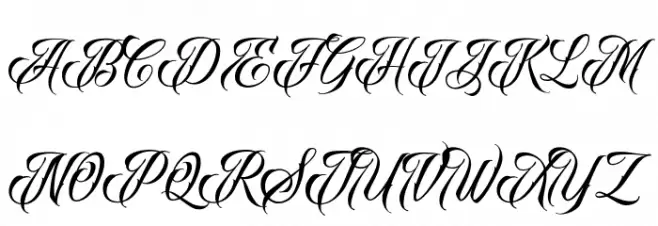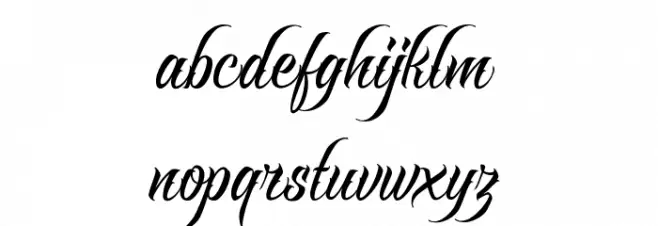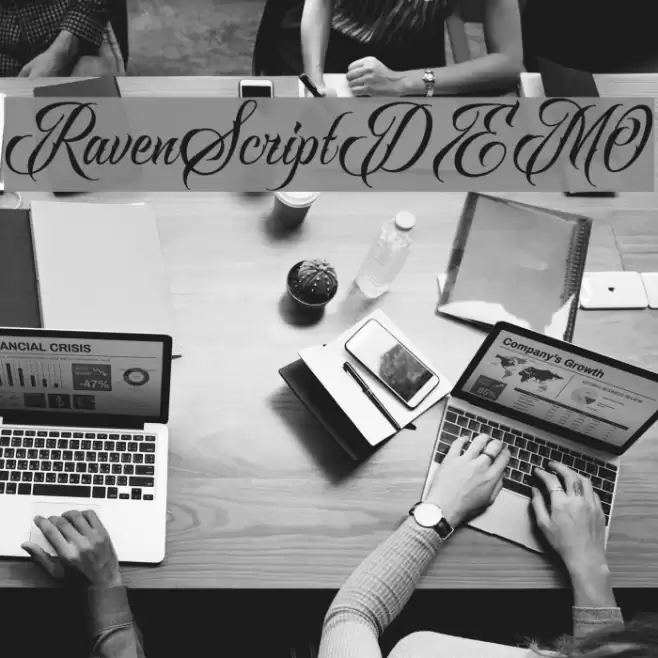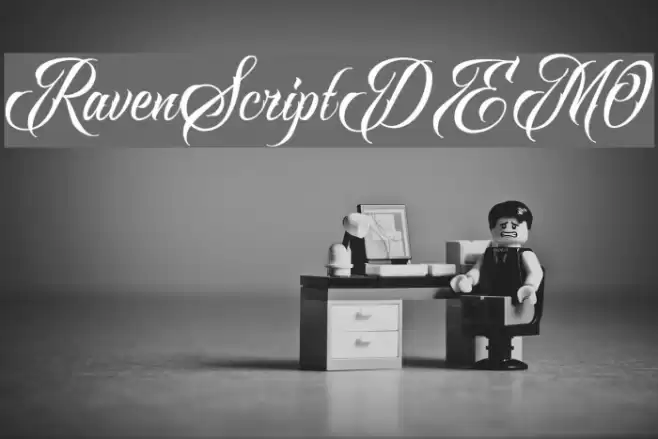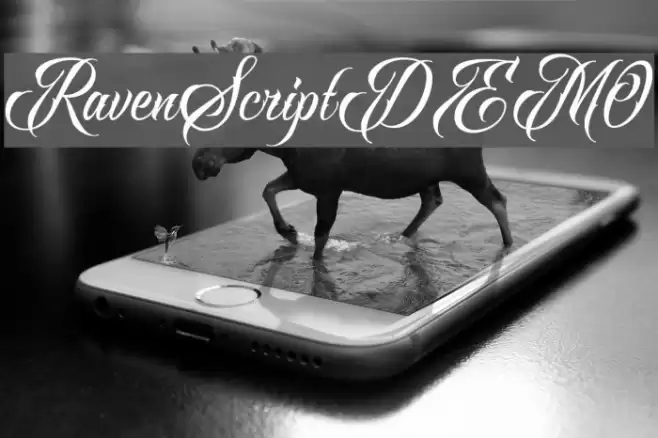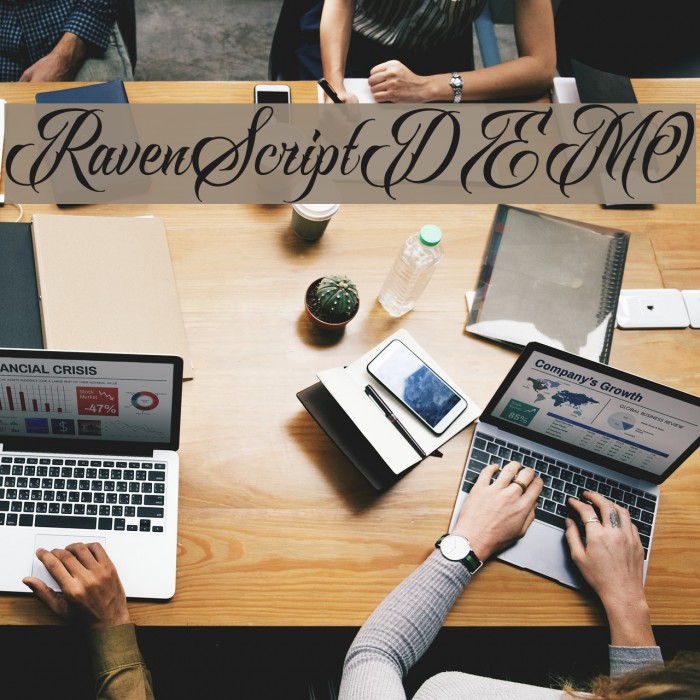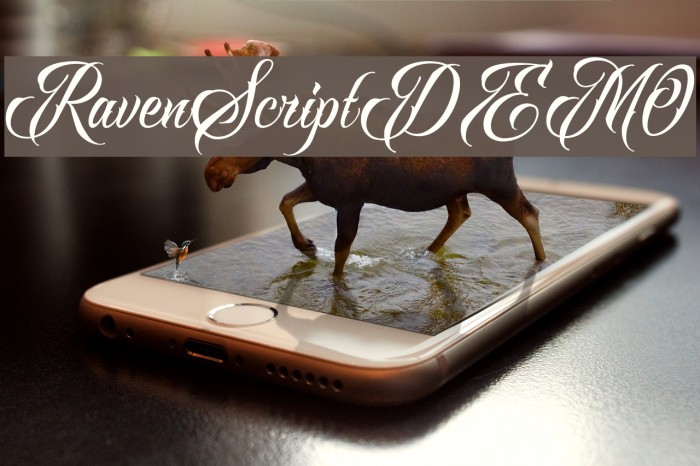
RavenScriptDEMO
This font features an elegant and flowing script style, characterized by its ornate and decorative letterforms. The uppercase letters are particularly elaborate, with sweeping curves and flourishes that give a sense of movement and sophistication. The lowercase letters maintain a consistent style, with smooth connections and a slightly more restrained design compared to the uppercase. This font exudes a classic and timeless feel, making it suitable for formal invitations, branding, and any project that requires a touch of elegance. The overall appearance is both artistic and legible, with a medium contrast in stroke thickness that enhances its readability without sacrificing its decorative appeal.
An elegant and flowing script font with ornate, decorative letterforms.
- Proposed Projects: Ideal for wedding invitations, luxury branding, greeting cards, and elegant signage.
- Category: Script
- Overall Style: Classic